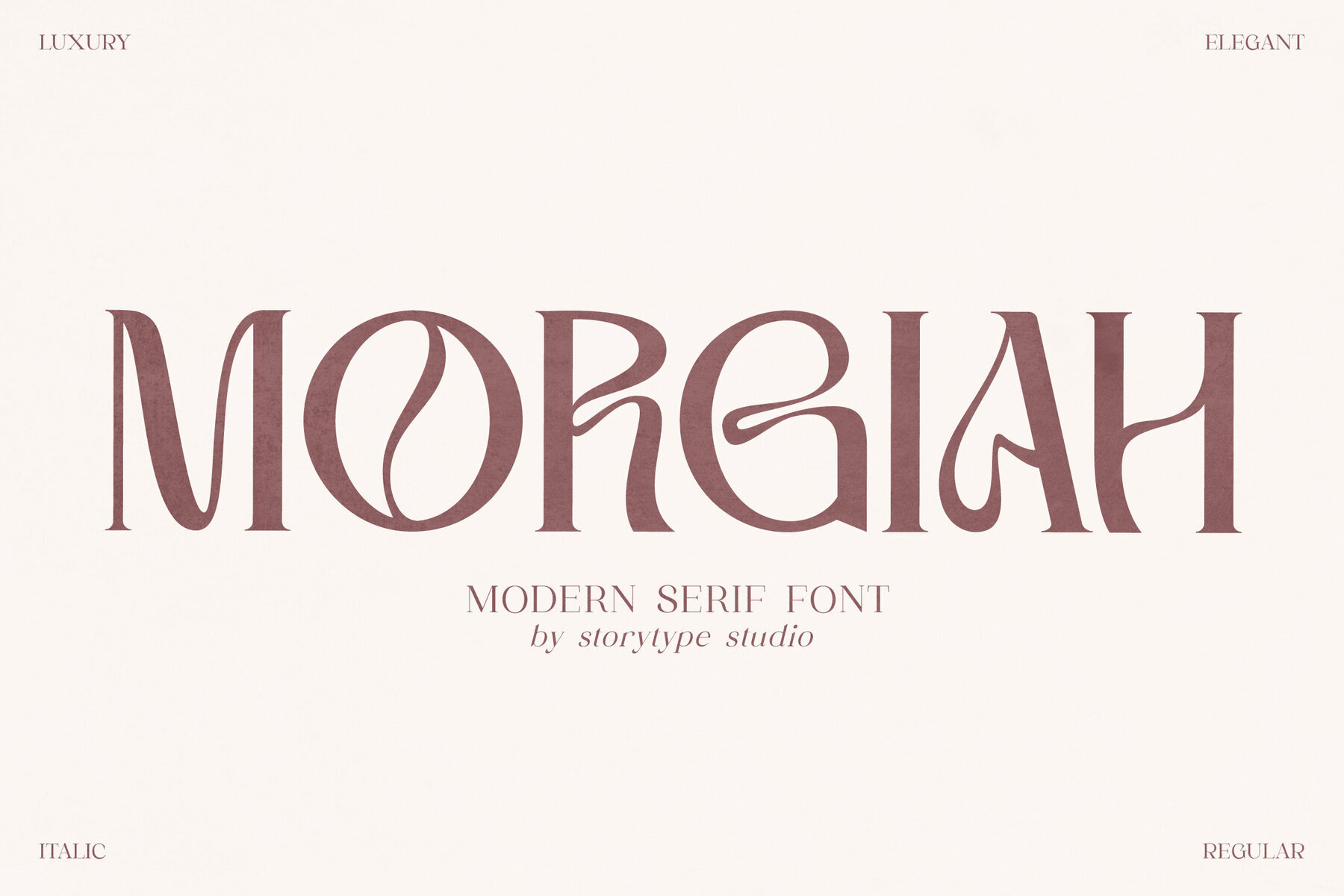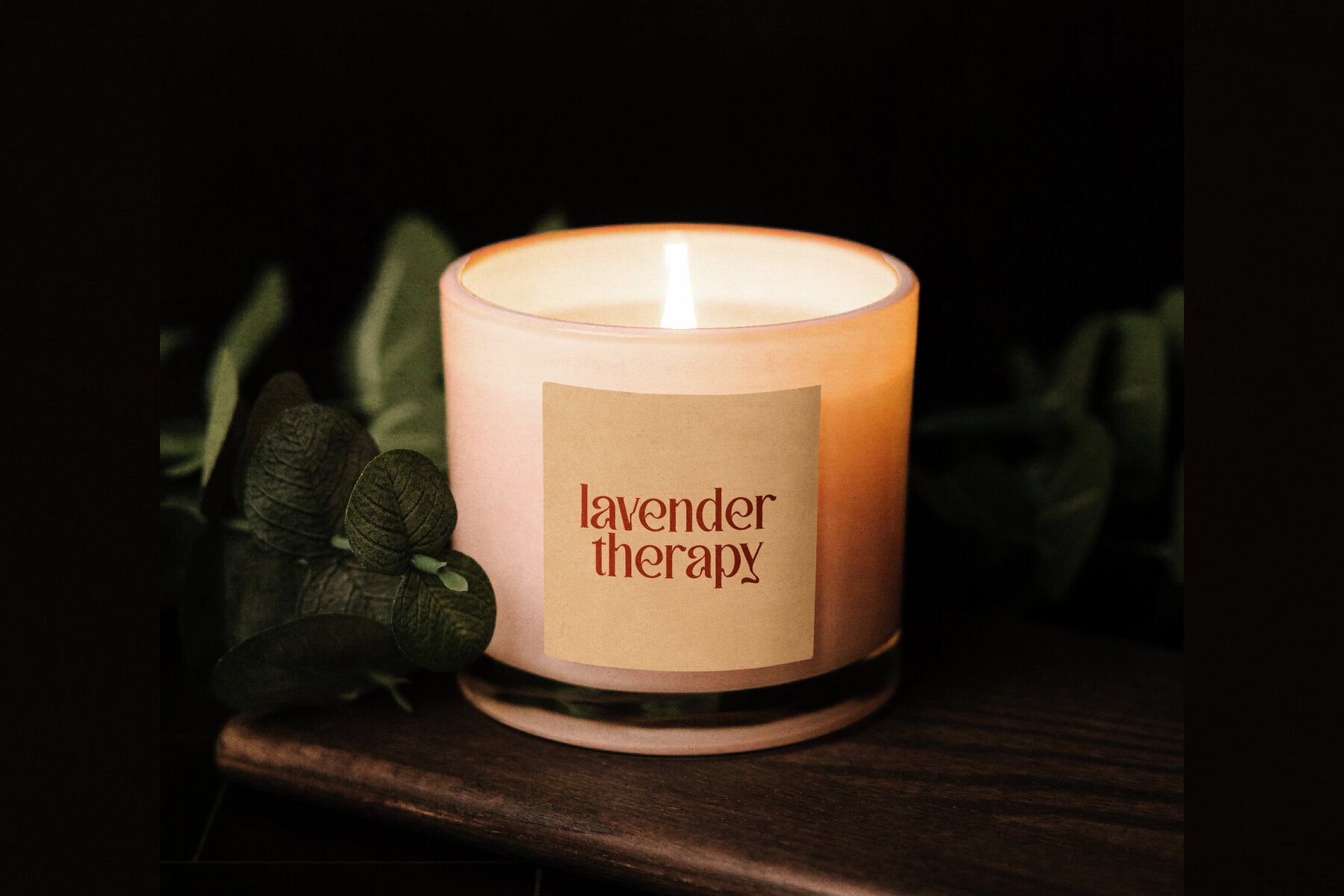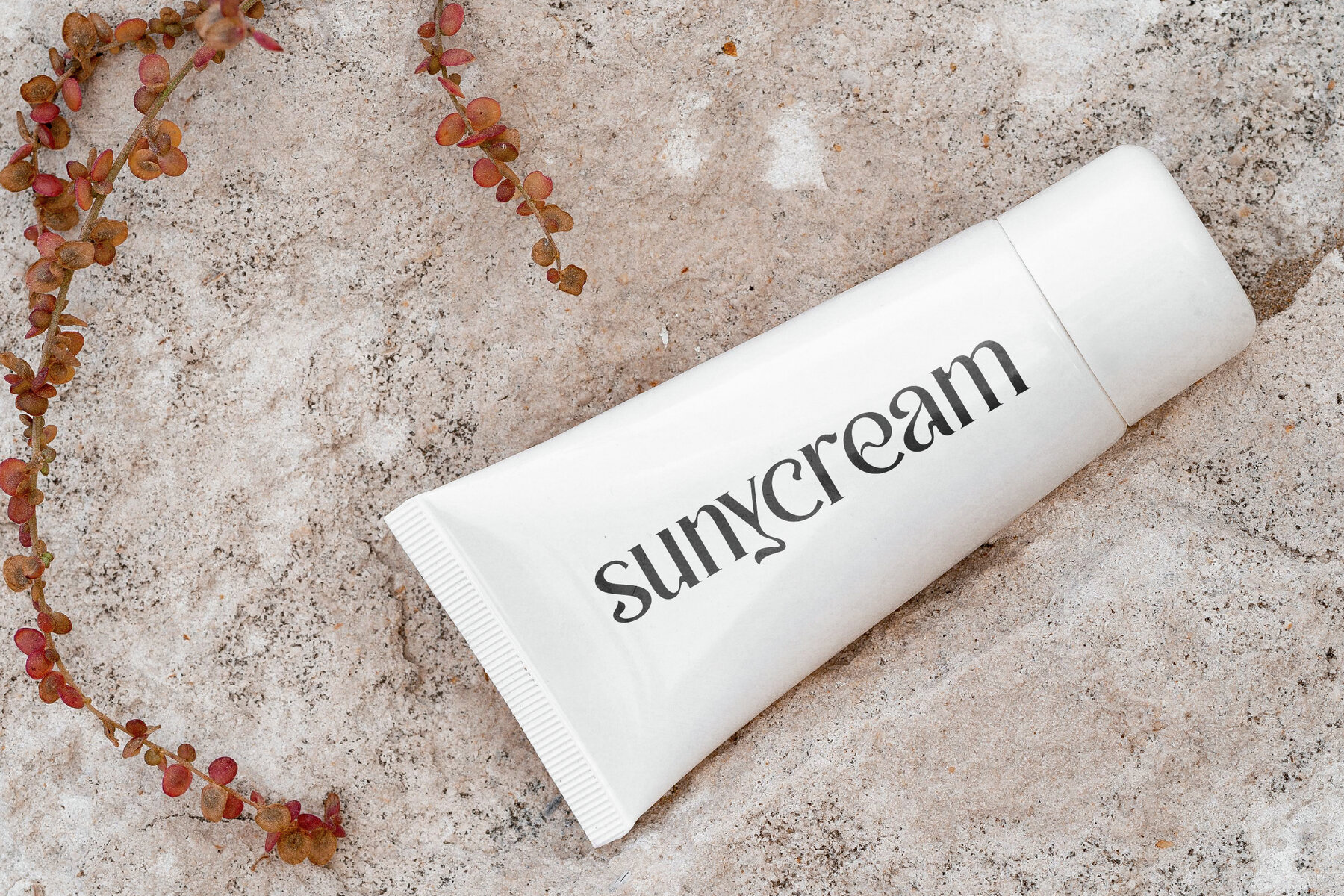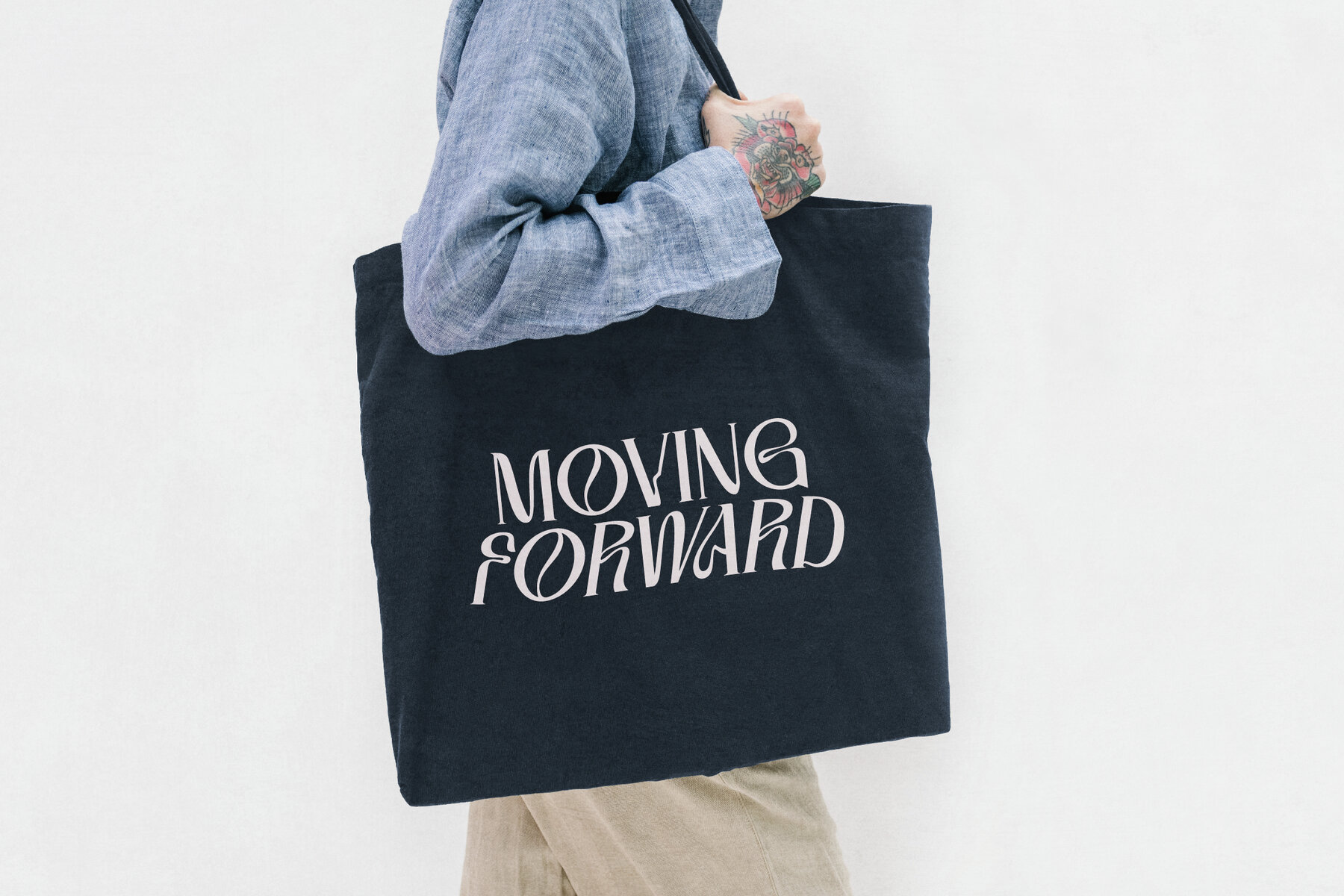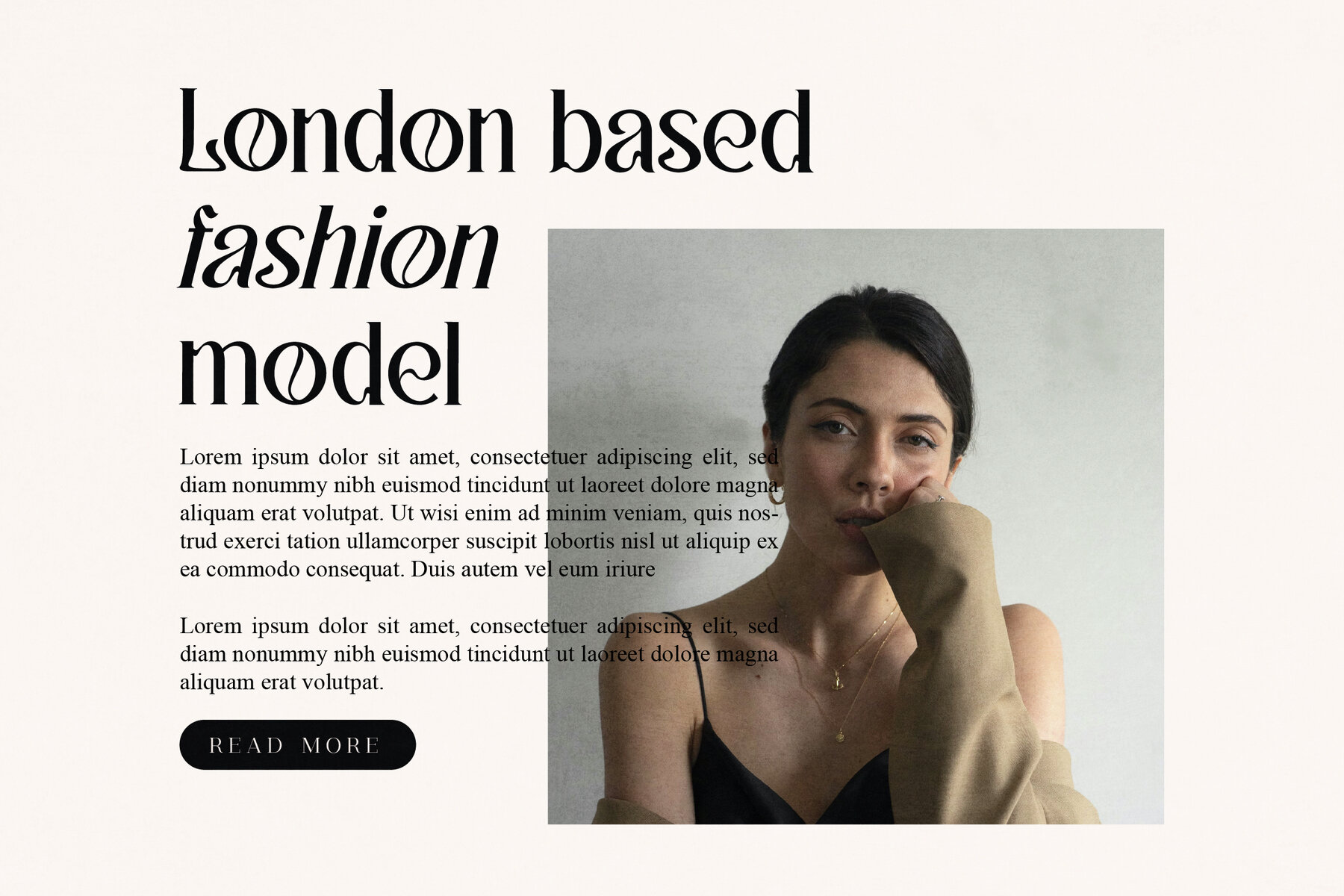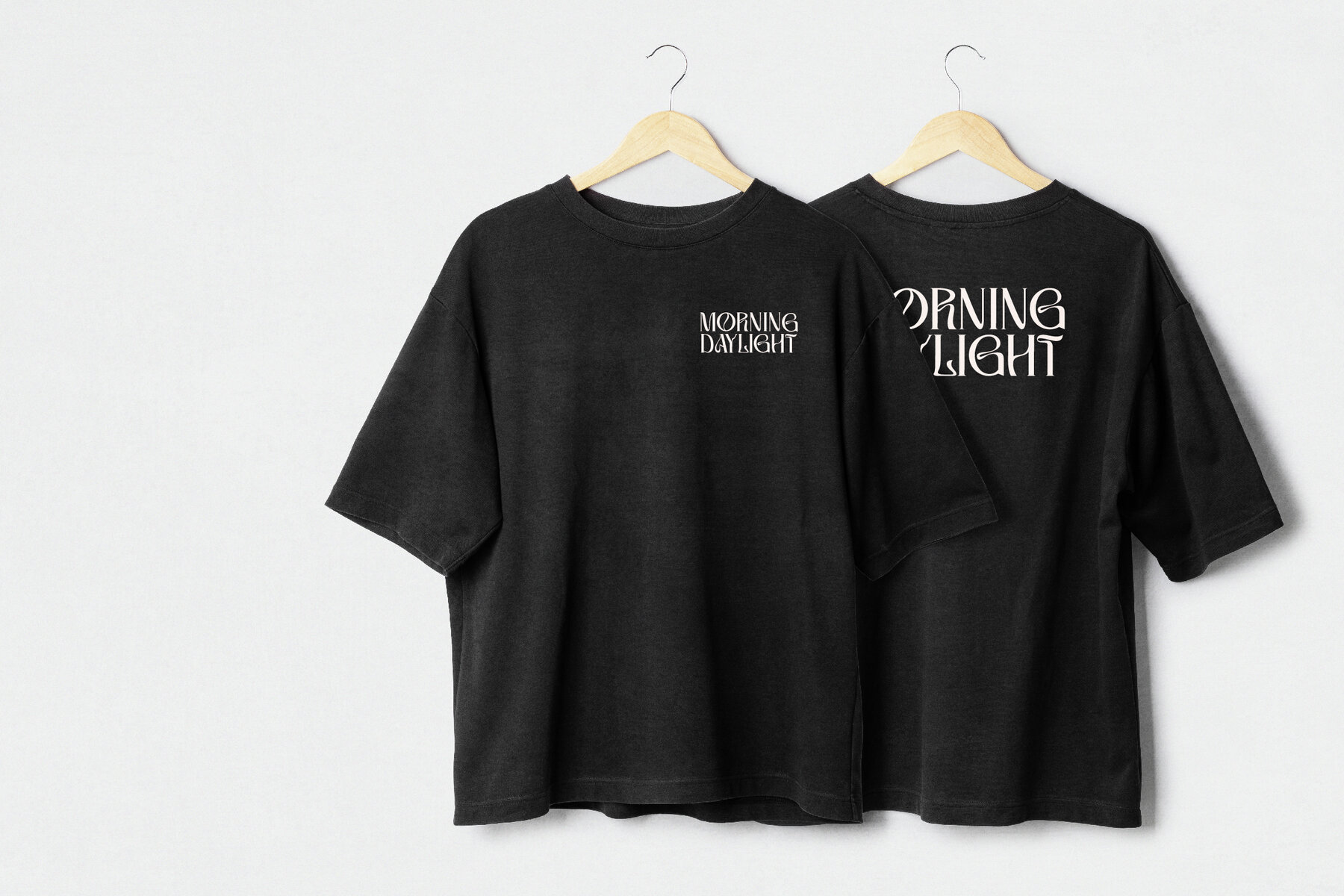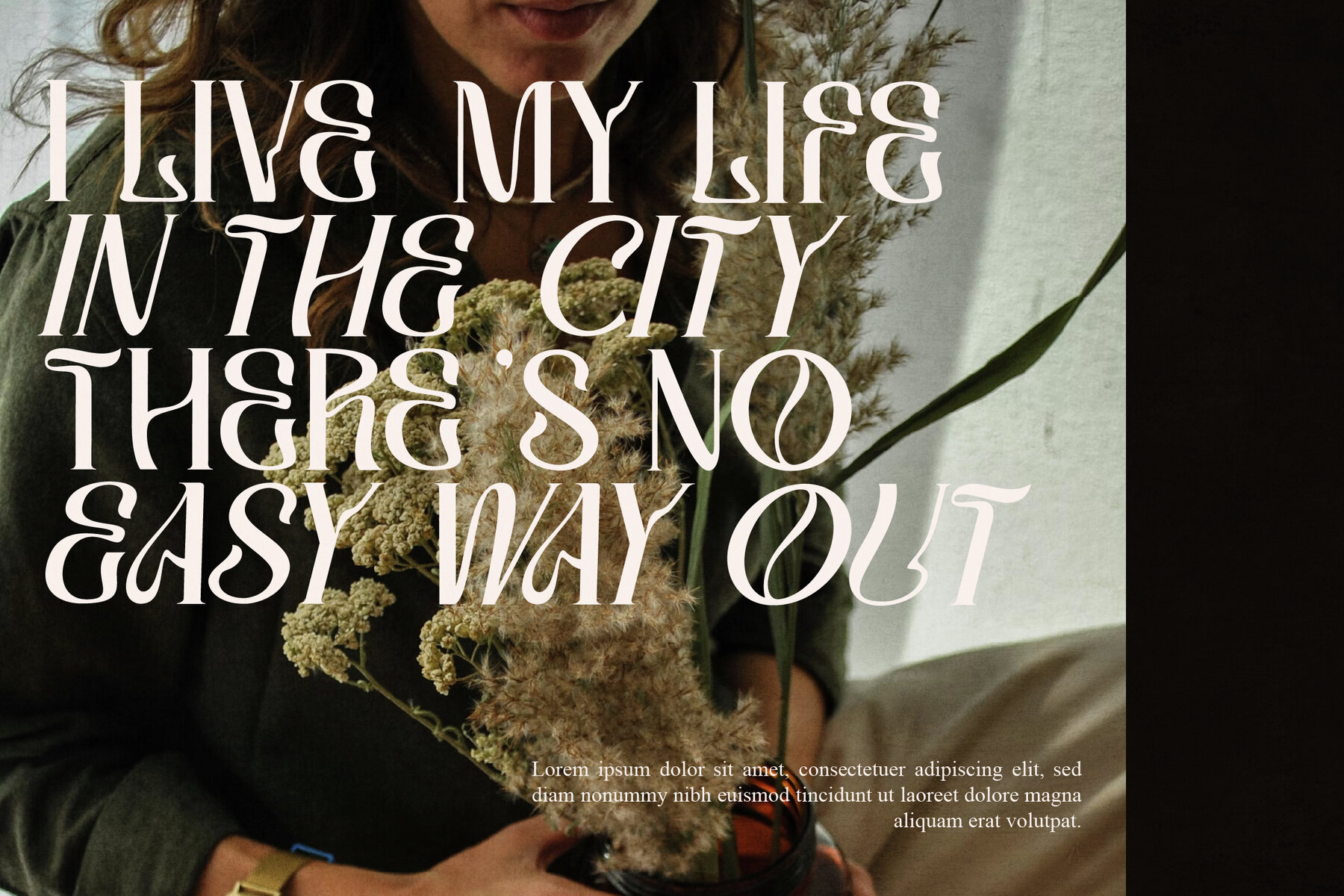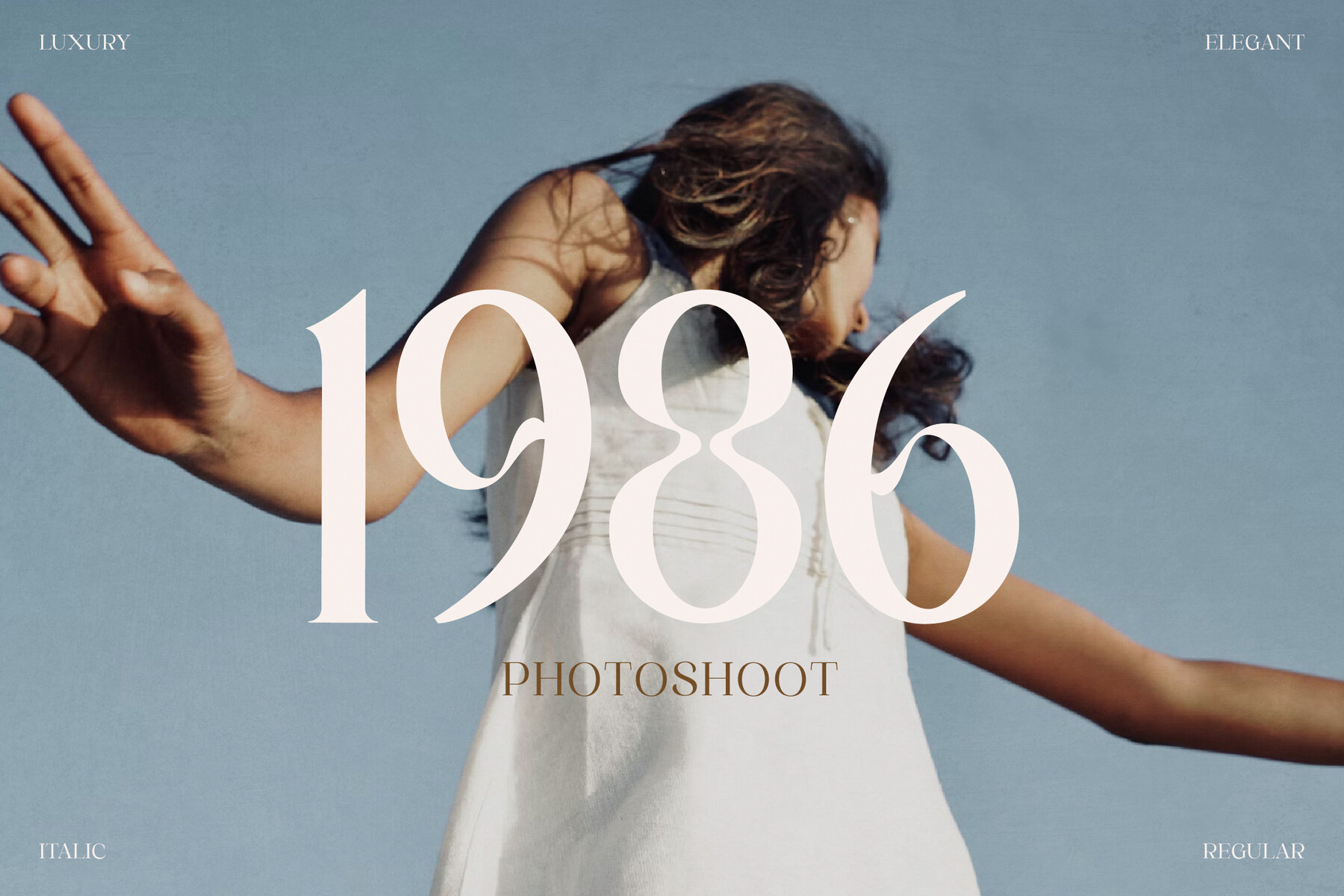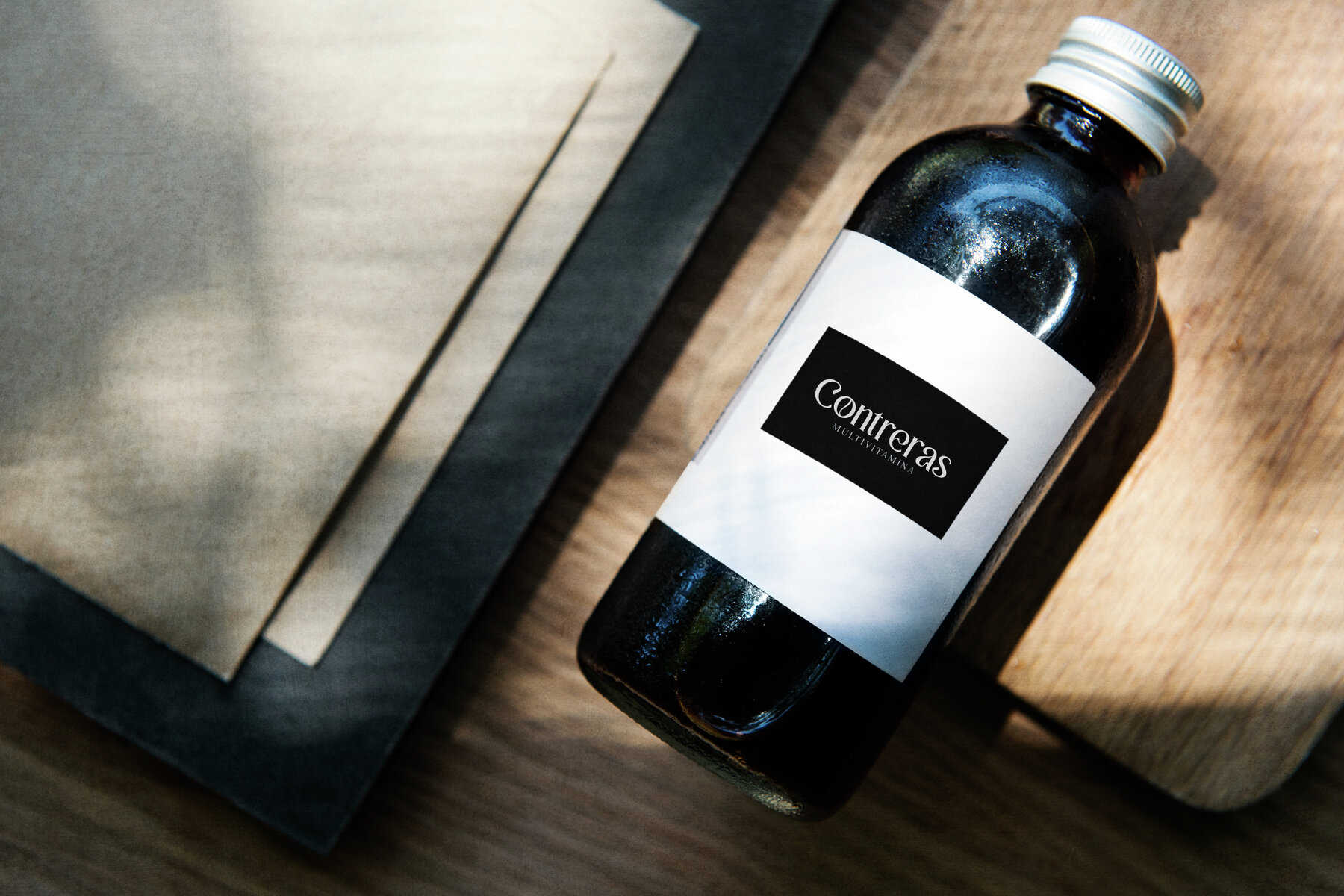
MORGIAH Font
Discover the MORGIAH typeface, a harmonious blend of classic elegance and modern flair. This exquisite serif font boasts a distinct, stylish look, making it an ideal choice for luxury logos, book and movie titles, fashion brands, magazines, clothing designs, and artistic quotes. With its versatile nature, MORGIAH will undoubtedly elevate your creative projects to new heights.MORGIAH Typeface - A Classic Meets Modern Masterpiece